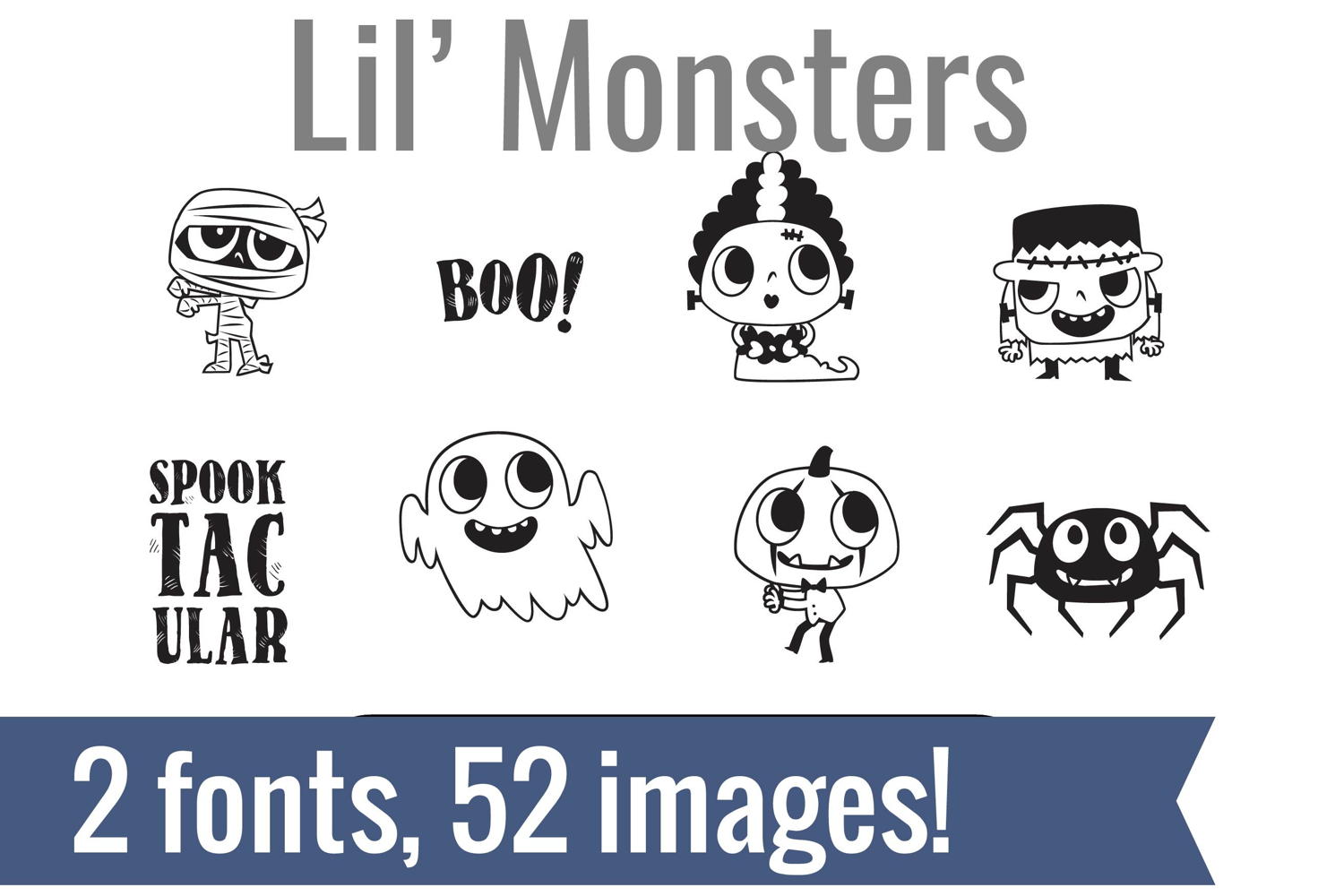
Lil' Monsters Dingbats
Unlock endless creativity with two perfectly coordinated fonts! There are two dingbat fonts in this bundle, both featuring the cutest little monsters, spooks, ghosts, and elements.
Tired of spending hours searching for the perfect icons and graphics? Our dingbat fonts put dozens of cohesive, scalable designs at your fingertips. Simply install the font and type a letter to produce a pre-made image. From charming seasonal icons for holiday cards to intricate frames for your invitations, these fonts let you create stunning designs for vinyl cutting, paper crafts, planners, and more.